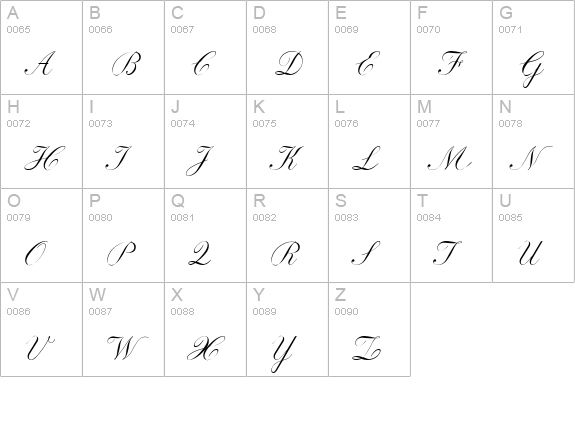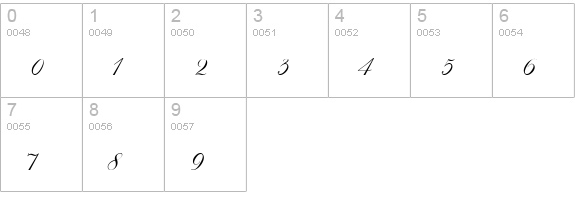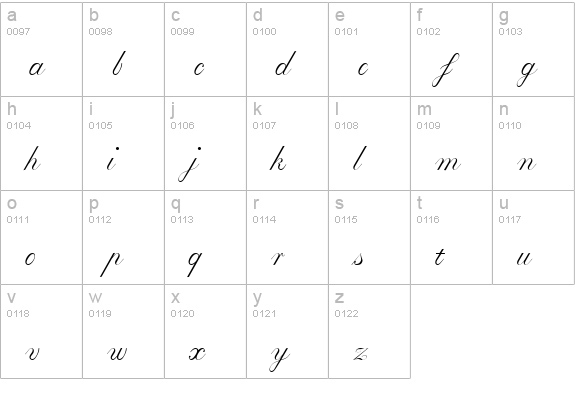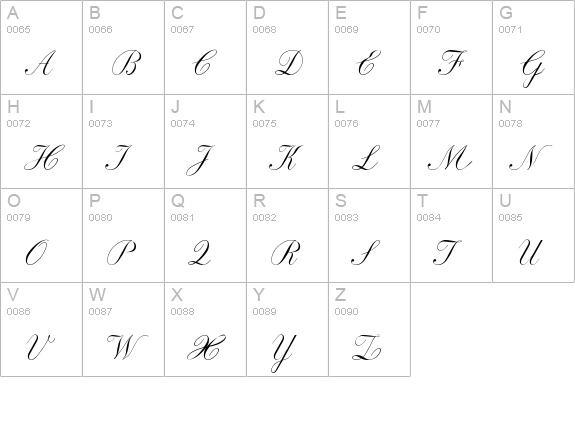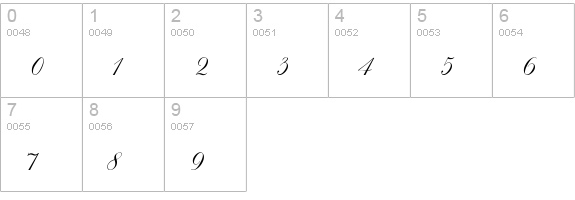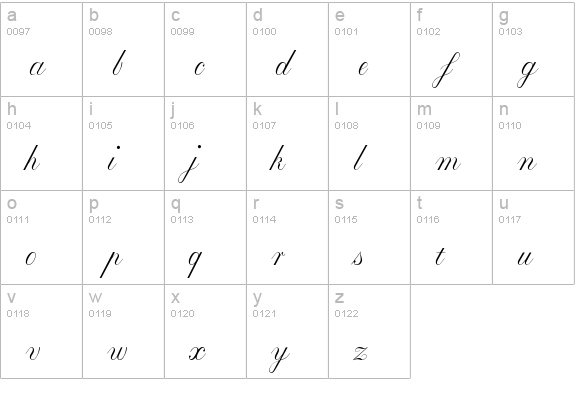
EdwardEdwin Plain Font Details
Introducing EdwardEdwin Plain font, a sleek and versatile typeface that exudes simplicity and elegance. This font is perfect for those seeking a clean and minimalistic design, while still making a bold statement. With its timeless appeal, EdwardEdwin Plain font is sure to elevate any project to new heights. The beauty of EdwardEdwin Plain font lies in its effortless legibility and balanced proportions. Each letter has been meticulously crafted to ensure optimal readability, making it ideal for a wide range of design applications. From branding and packaging to editorial design and signage, this font seamlessly adapts to any project, delivering a polished and professional look. But what sets EdwardEdwin Plain font apart is that it is not only visually stunning, but also freely available to download at FontsMarket.com. Yes, you read that right! This exceptional font can be yours without any cost, making it the perfect choice for budget-conscious designers and creatives. Now, you can have access to a high-quality font that doesn't compromise on style or functionality. So, why wait? Embrace the versatility and sophistication of EdwardEdwin Plain font and unlock a world of creative possibilities. Whether you're a seasoned designer or just starting out, this font is guaranteed to add a touch of elegance to your projects. Download EdwardEdwin Plain font for free at FontsMarket.com and let your creativity soar to new heights.